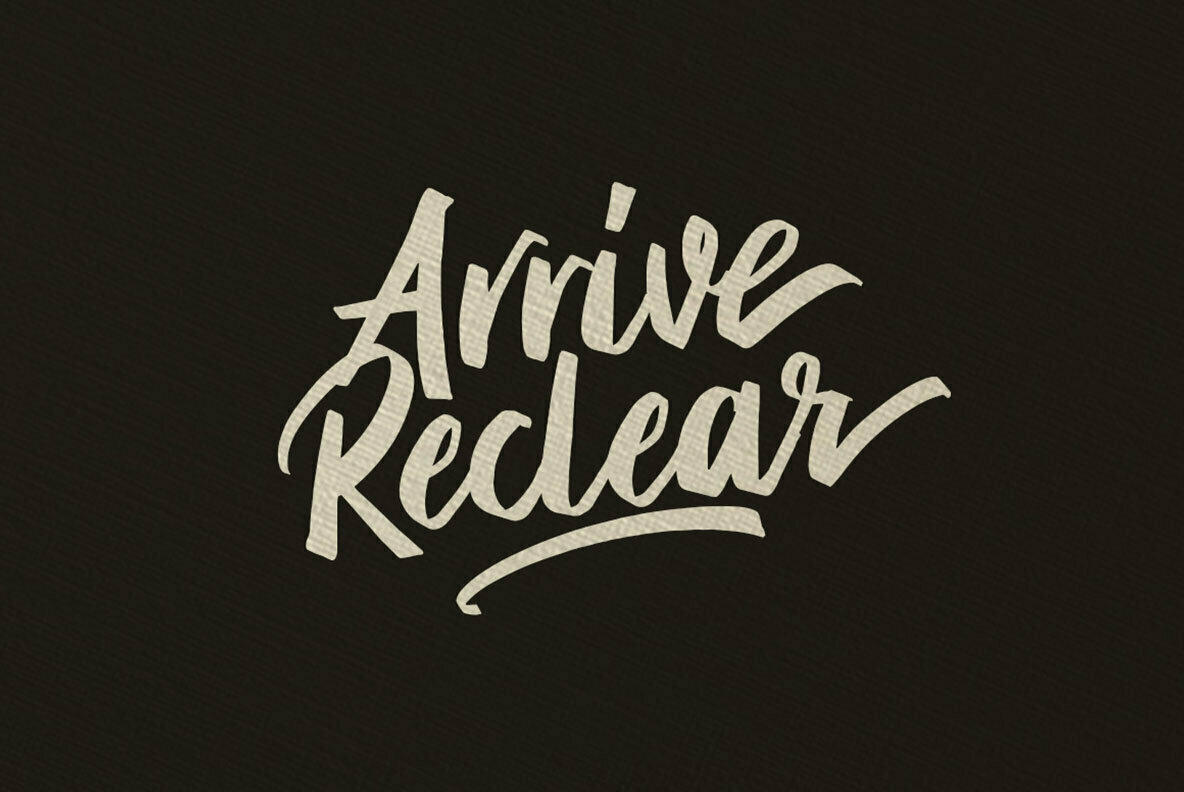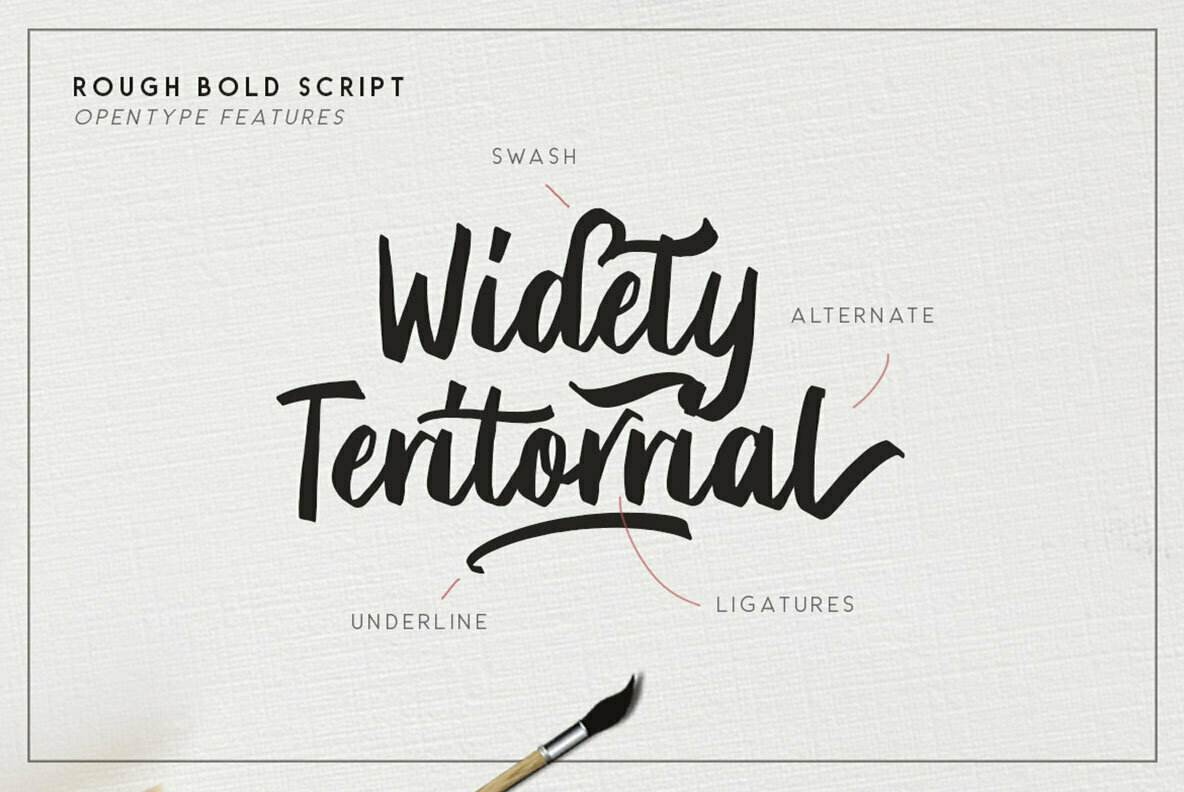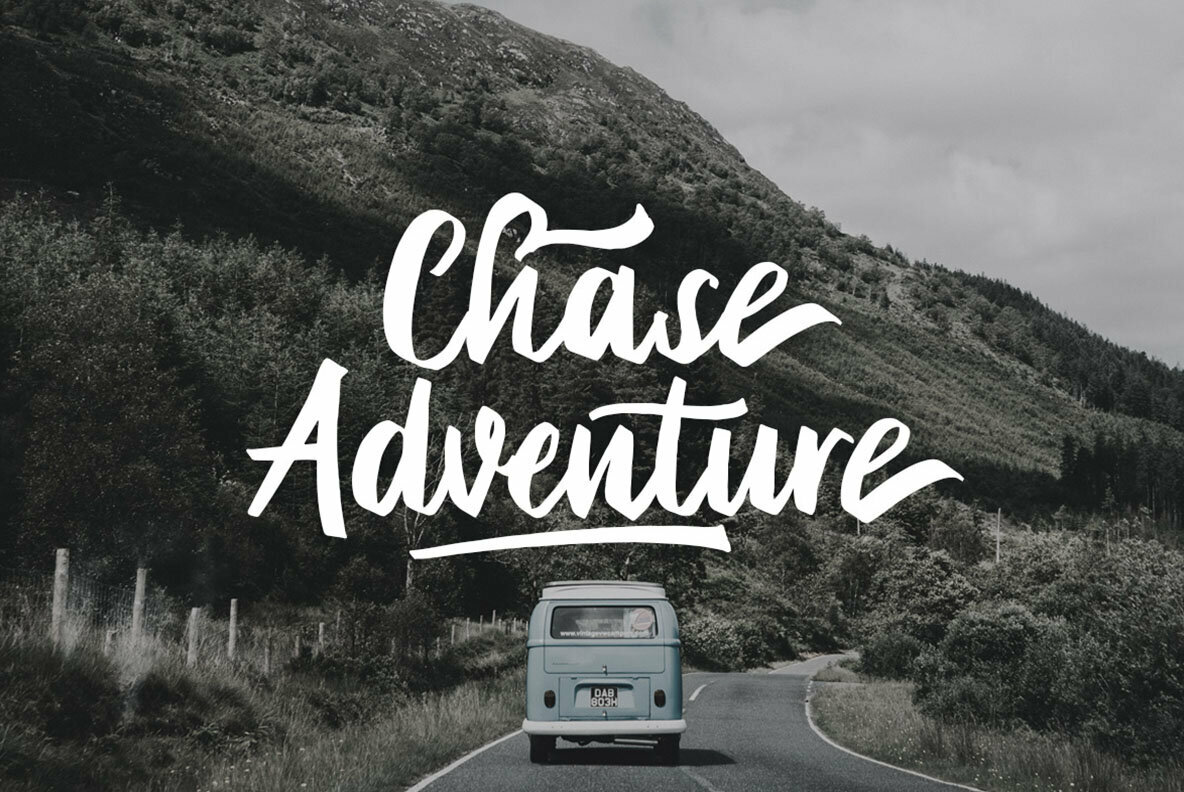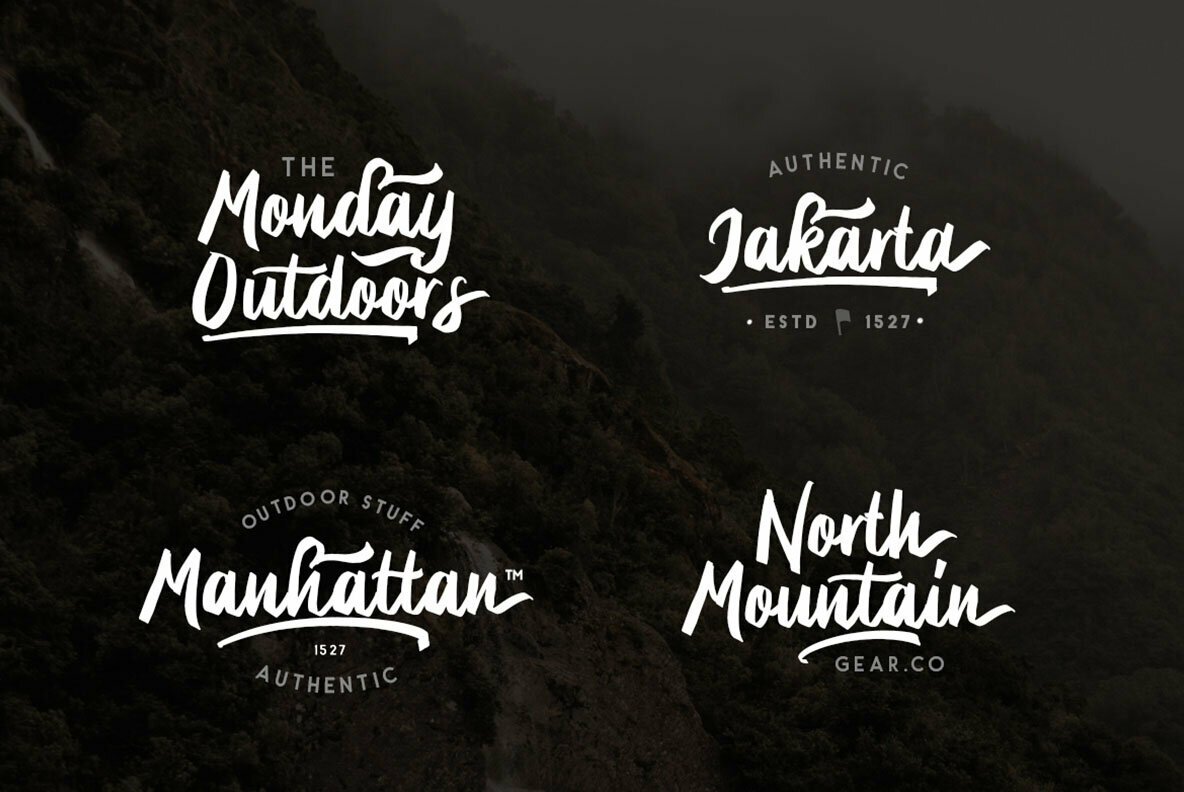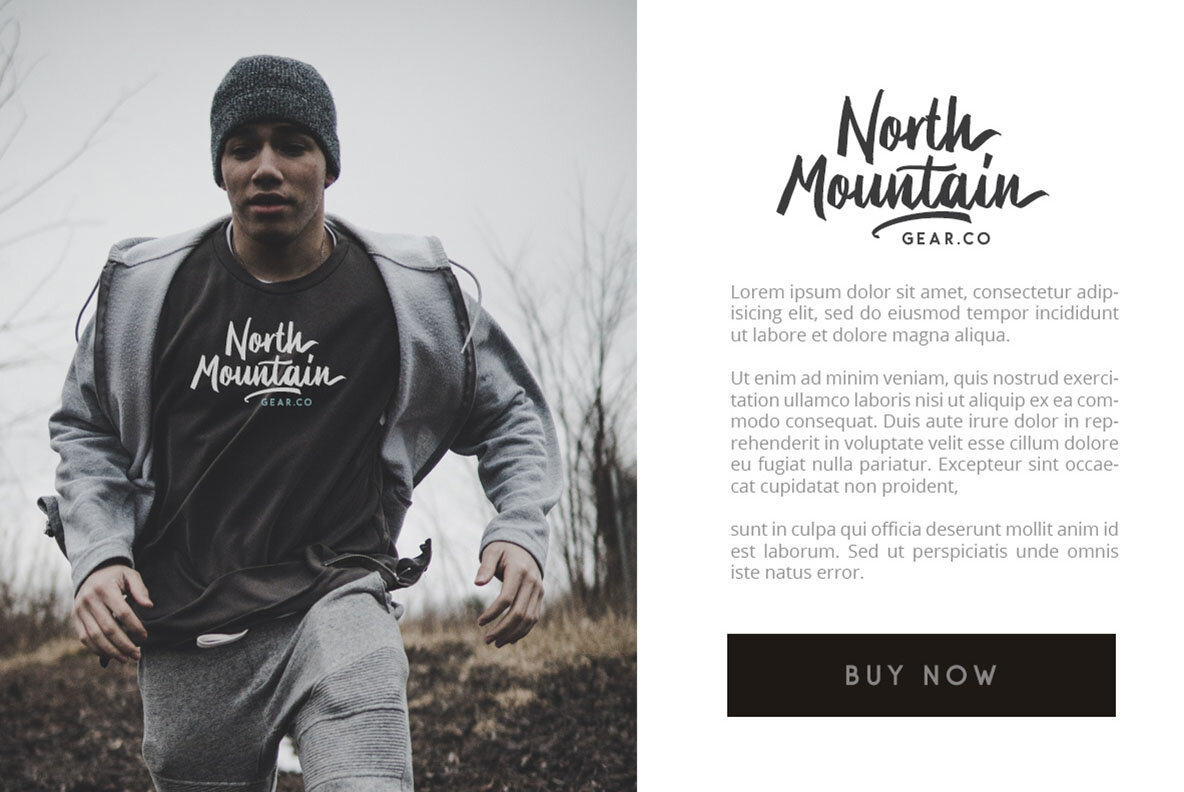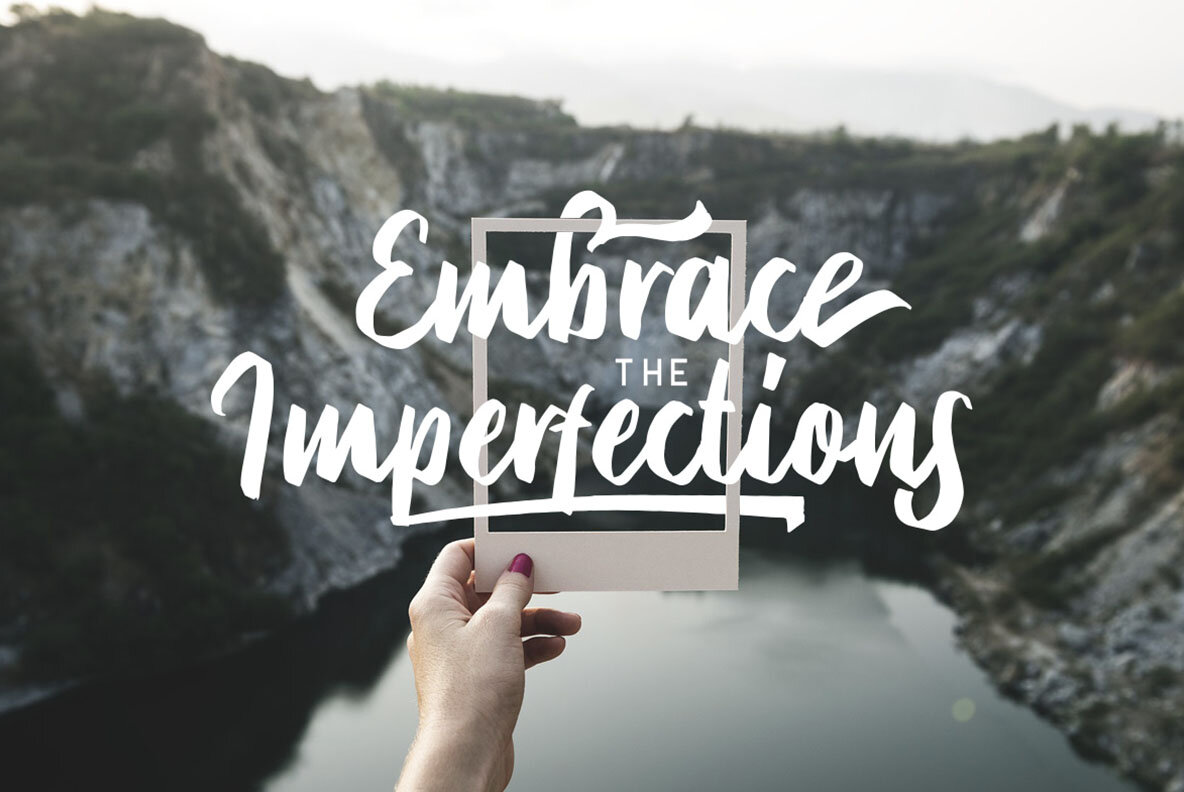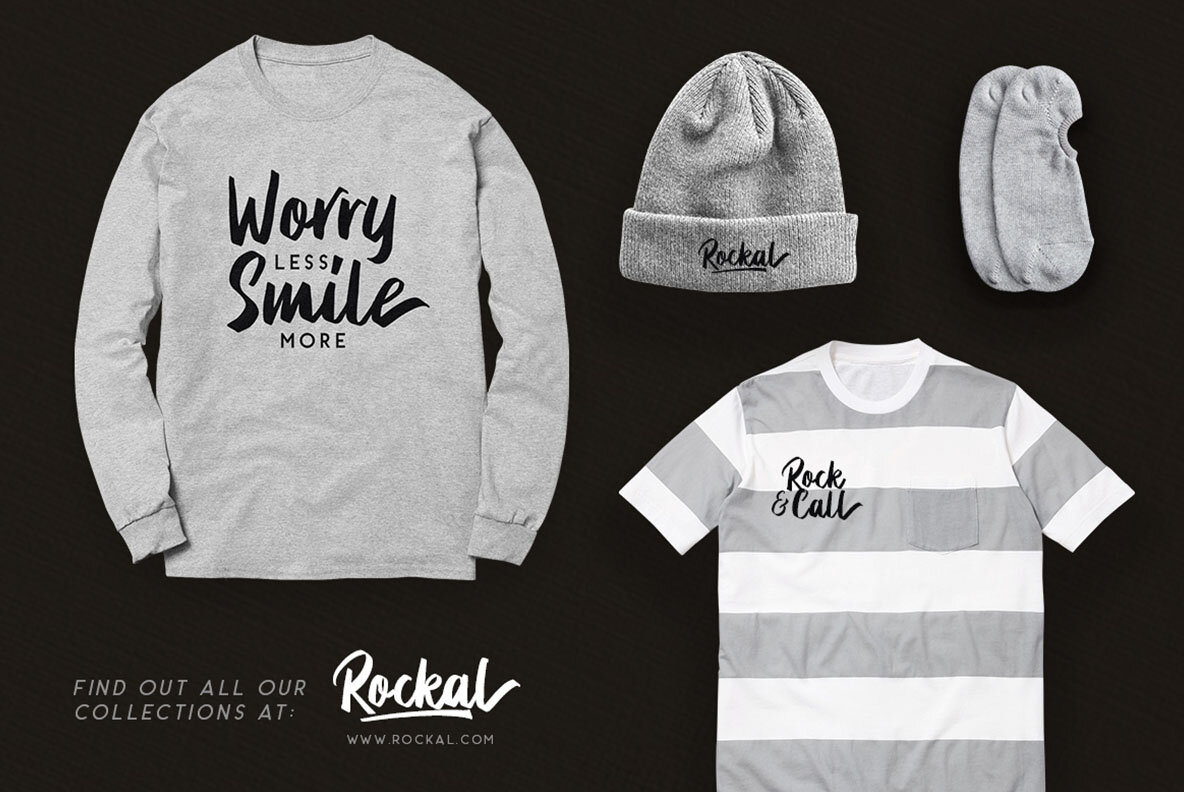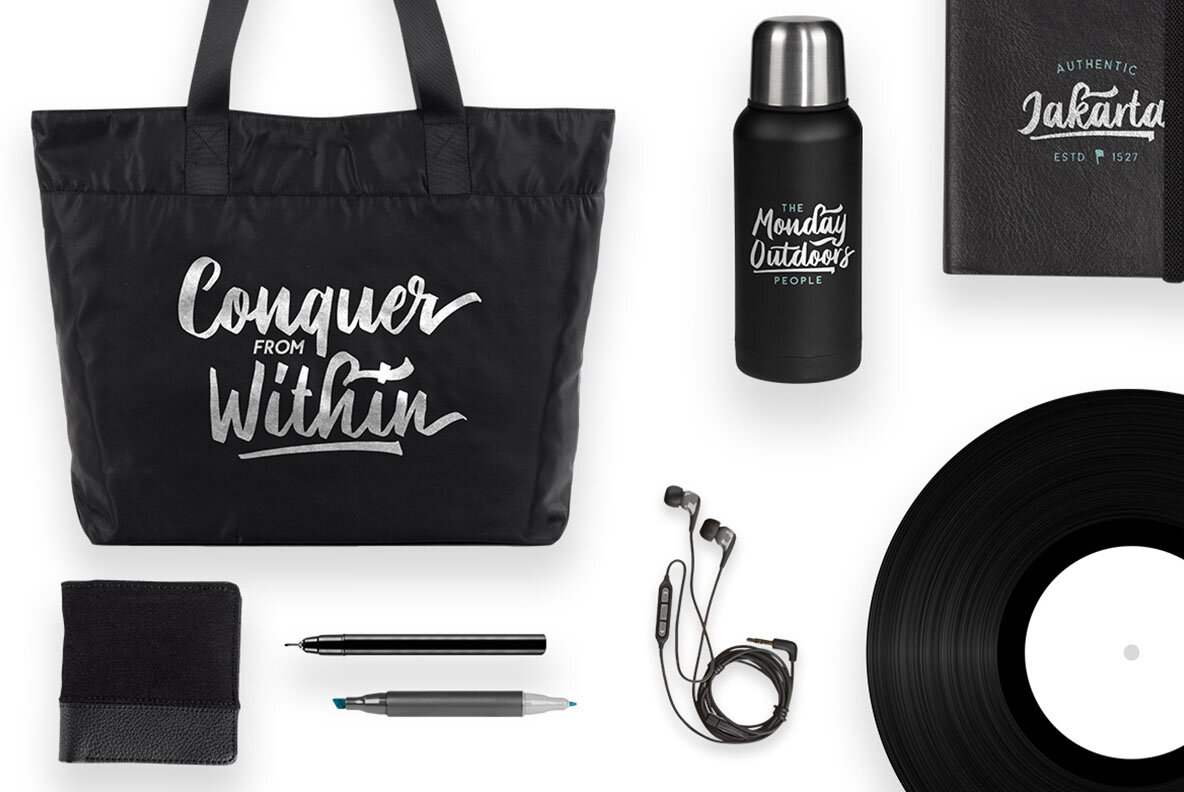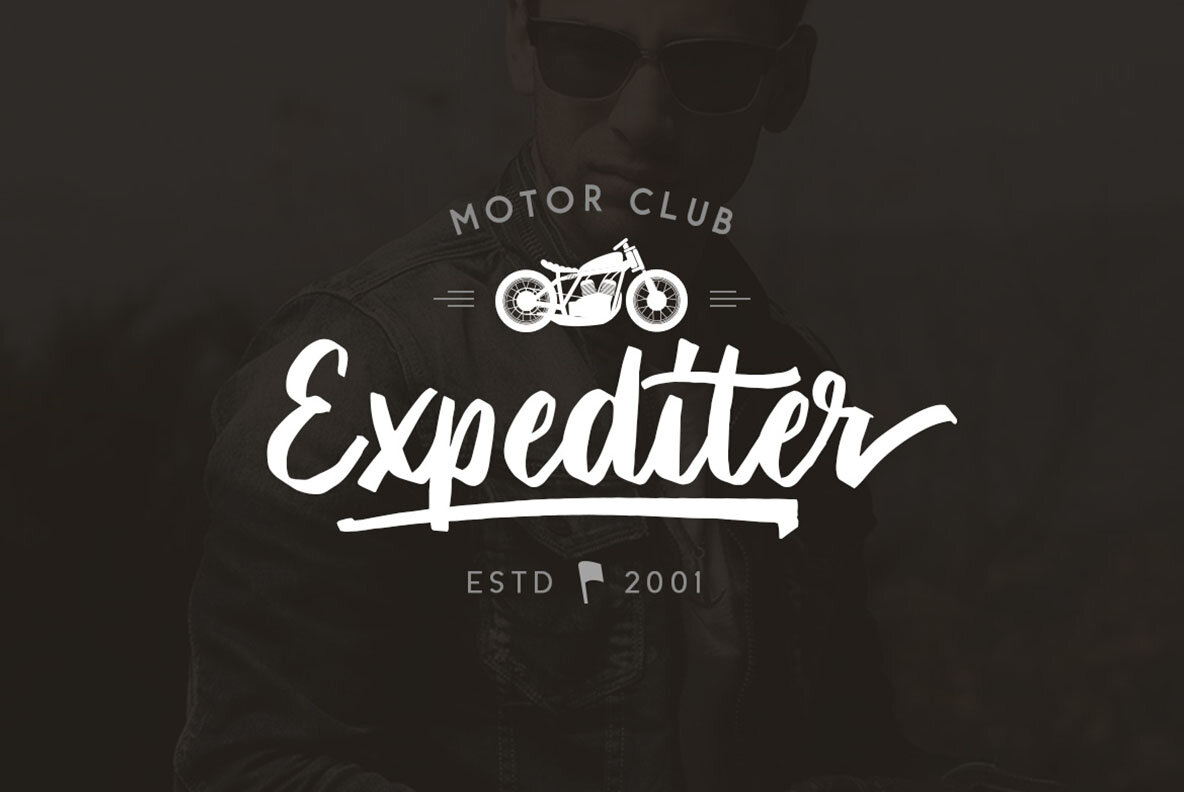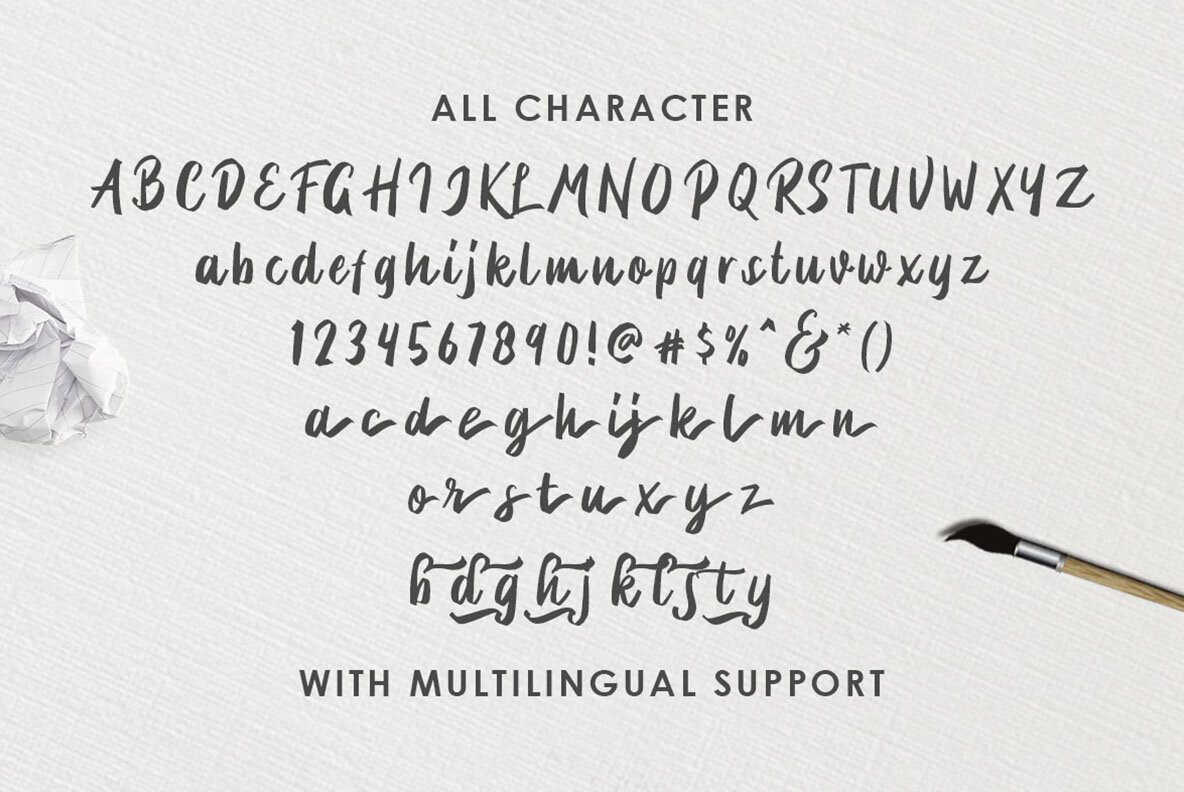
Briberra Font
Briberra
Briberra captivates with the charm of hand-lettered script, embodying a bold and realistic style sure to make a statement. Ideal for quotes and apparel design, its versatile nature ensures adaptability to various creative projects. This font serves as a strong foundation for any designer seeking to infuse their work with a touch of personalized flair.Briberra: Realistic Rough Bold Script
Elevate your designs with Briberra's bold presence, offering both style and substance for any artistic venture.